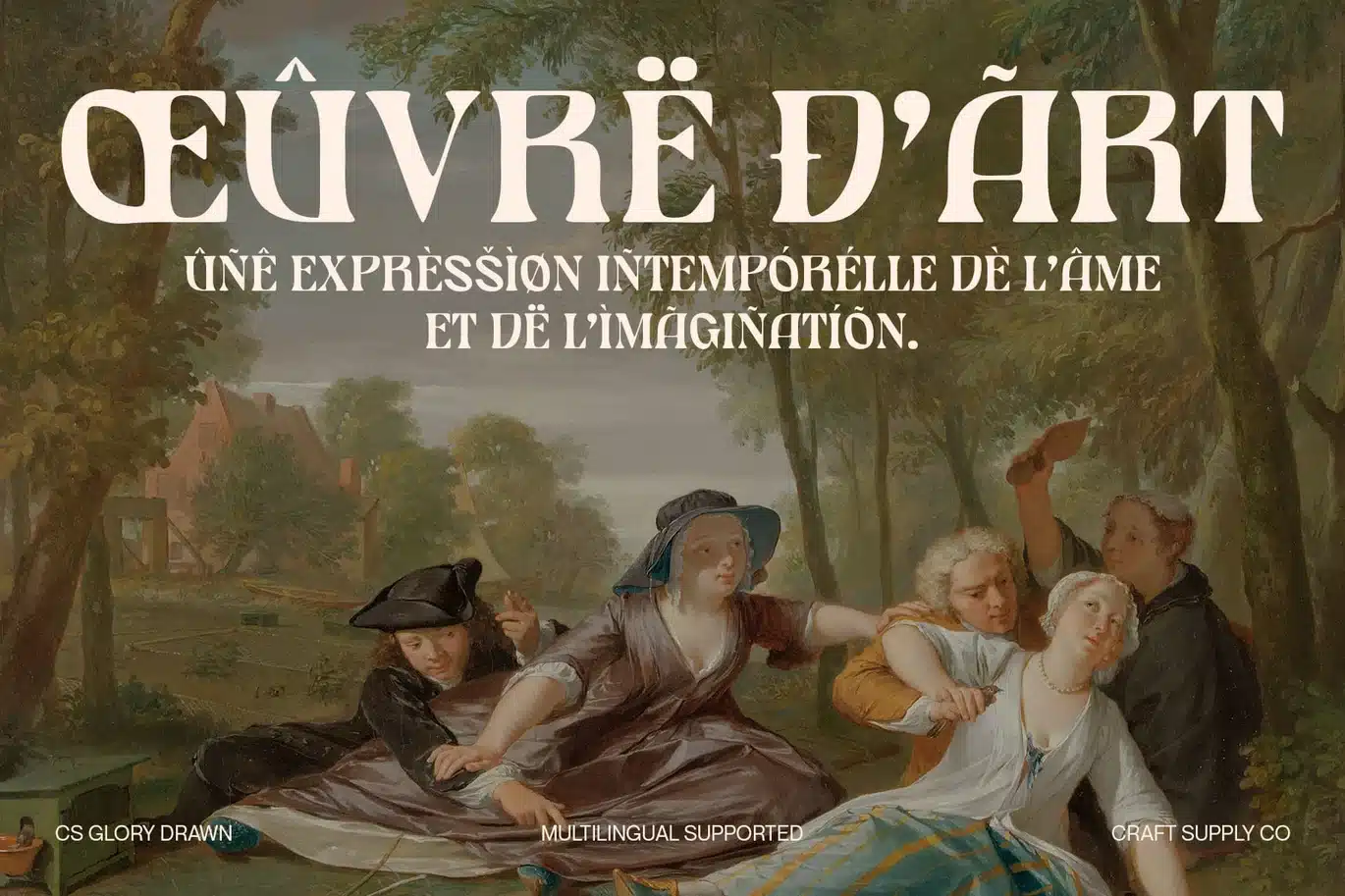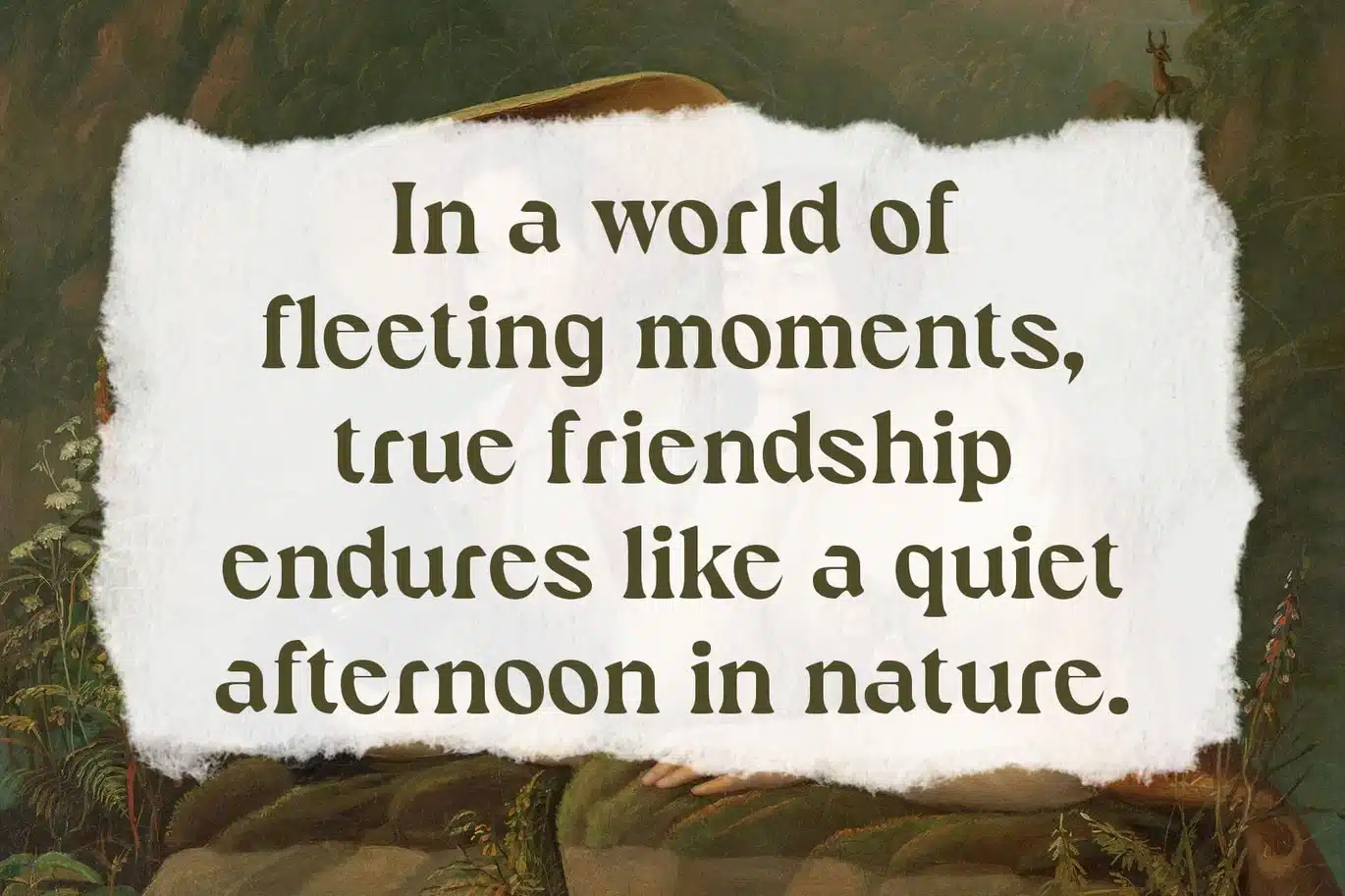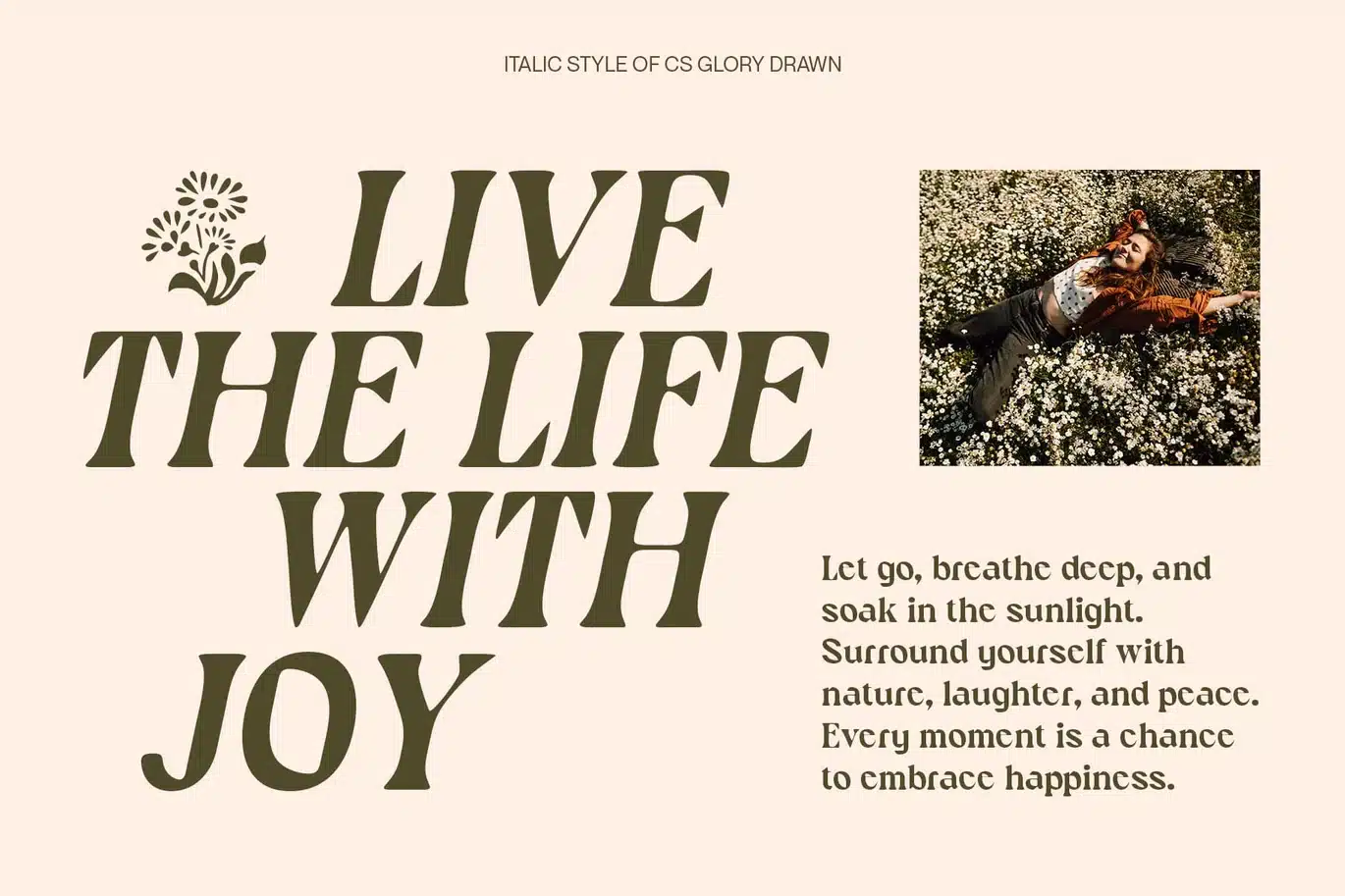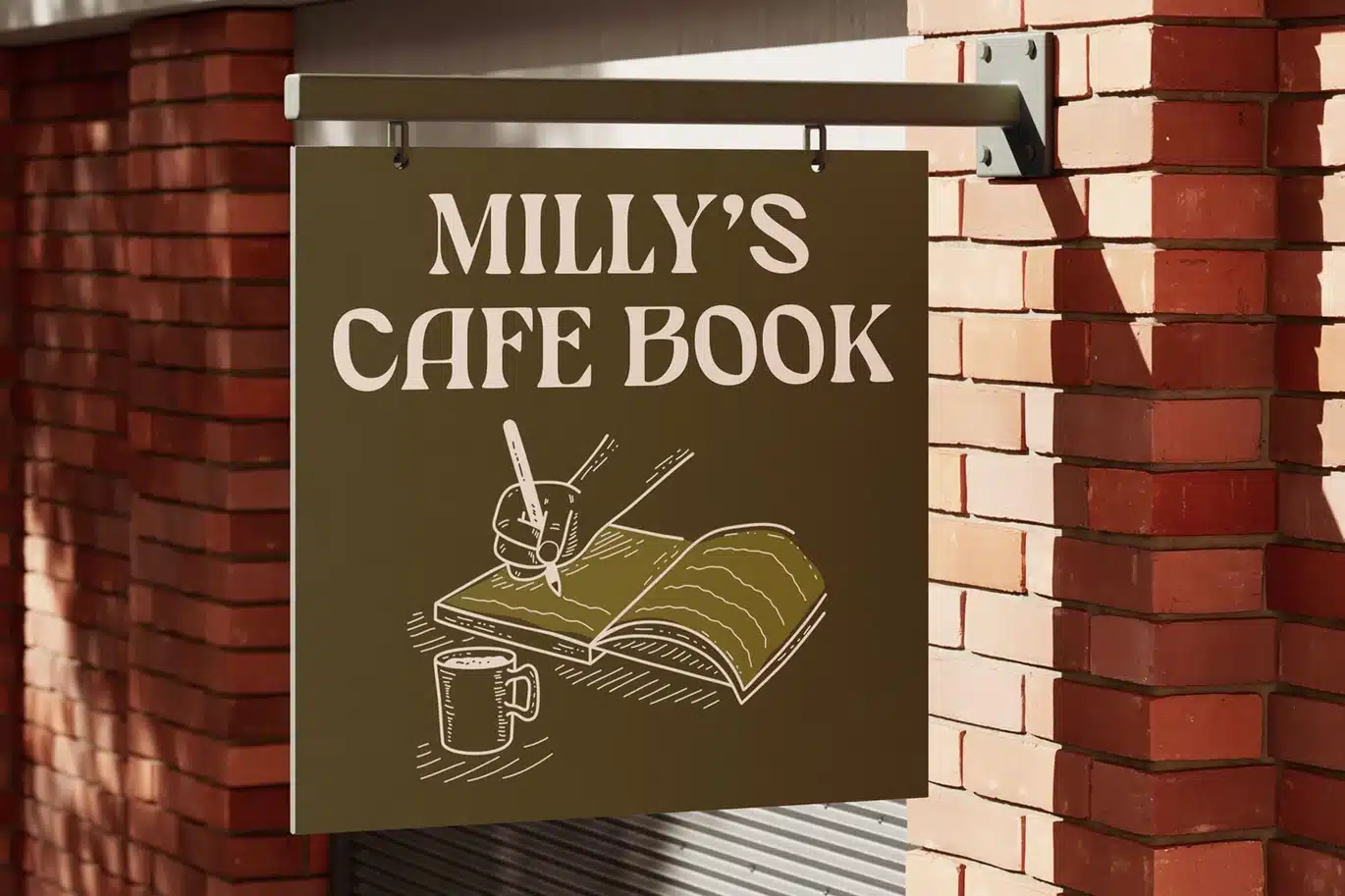
Glory Drawn Font
CS Glory Drawn – Timeless Elegance with a Handcrafted Retro Soul
Classic Serif with Retro Charm
This is a classic serif font that captures the essence of vintage design with a graceful and nostalgic feel. Its distinctive serif structure evokes the elegance of traditional typography, lending sophistication and refinement to any design. The retro vibe is strong yet tasteful, perfect for channeling the charm of the past in a modern context.
Handcrafted Texture with Drawn Effect
The drawn effect gives the font a warm, organic texture that feels personal and artisanal. This handcrafted quality softens the classic structure, adding character and uniqueness to each letterform. It introduces subtle imperfections that make the design more approachable and expressive, ideal for creative branding or editorial layouts seeking authenticity.
Versatile and Stylish for Nostalgic Design
Whether used for retro product packaging, timeless logos, or nostalgic editorials, This classic font offers a balanced blend of formality and creativity. It speaks to an audience that appreciates the elegance of the past while celebrating handcrafted detail. Its unique character is well-suited for brands and projects that want to stand out with heritage, warmth, and visual charm.